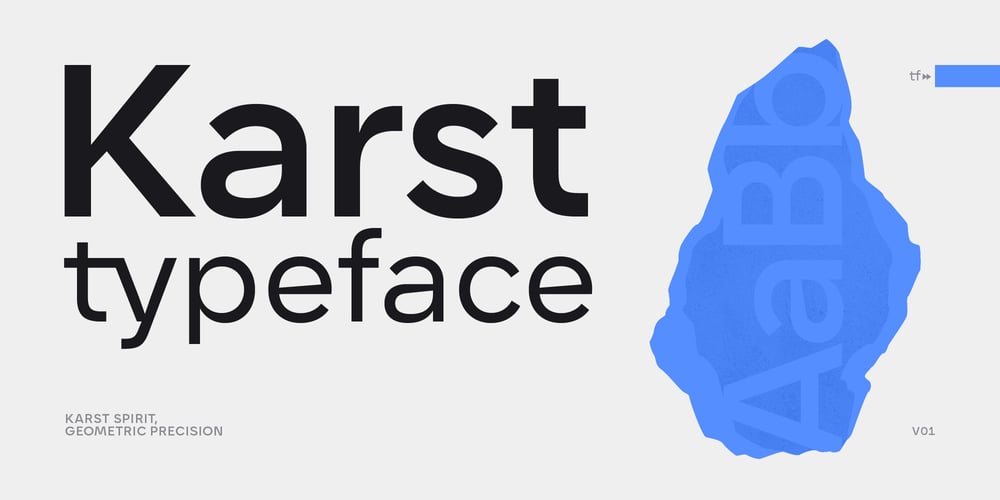
Karst
Karst font
Karst Font Family was designed by Mirela Belova, Stan Partalev and published by Type Forward. Karst contains 18 styles and family package options. Karst is a geometric sans-serif typeface with a contemporary, edgy character.Karst combines geometric shapes with distinctive angles, ensuring clarity and readability. Its high x-height, minimal stroke contrast, and open letterforms make it suitable for both headlines and body text.Inspiration:Karst is inspired by natural rock formations called Karst landscapes, known for their flowing curves and sharp edges. These contrasts influenced its precise geometric shapes and distinctive angles, making it visually appealing across web, print, branding, and editorial contexts.Key Features:Karst features minimal horizontal and vertical stroke contrast. It has intentionally blunt and sharply cut endings and connections, particularly visible in diagonal letters such as “A,” “Y,” “K,” “M,” and “V.” Horizontal bars in letters such as “e” and “a” have sharp diagonal cuts with a lot of personality. The typeface conveys the feeling of modernity and strength.Font Family:Karst has 9 weights (Thin to Black) with matching italics for a total of 18 styles, also available in variable font format. The variable font includes two axes—weight and italic—allowing dynamic customization.Technical Details:Karst supports over 220 languages, including Extended Latin, Cyrillic, and Greek. It includes advanced OpenType features, such as standard and discretionary ligatures, a stylistic set offering contemporary alternates for letters “a” and “g,” tabular numbers, small figures, ordinals, case-sensitive punctuation, and localized language forms.Recommended Use:Karst works well across diverse projects. Extreme weights excel in headlines and branding, while medium weights remain legible in shorter, small-body texts, which would benefit from a modern, contemporary feel. It is optimized to perform equally well on screens and in print.Overview:Karst combines the clarity of geometric sans-serifs with unique contemporary details, making it distinctive and versatile for various design applications.Classification: Geometric Sans SerifIdeal Applications: Body Text Headlines & Titles Digital & Web Print Media Logos & Identity Branding & Editorial Languages Supported: Latin Extended Latin Cyrillic Greek